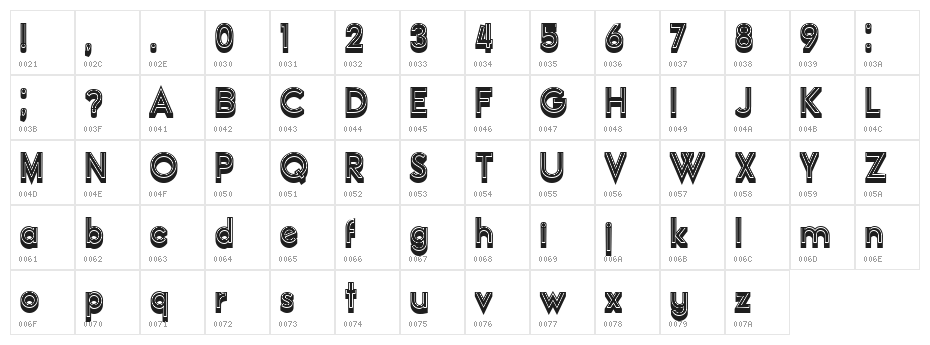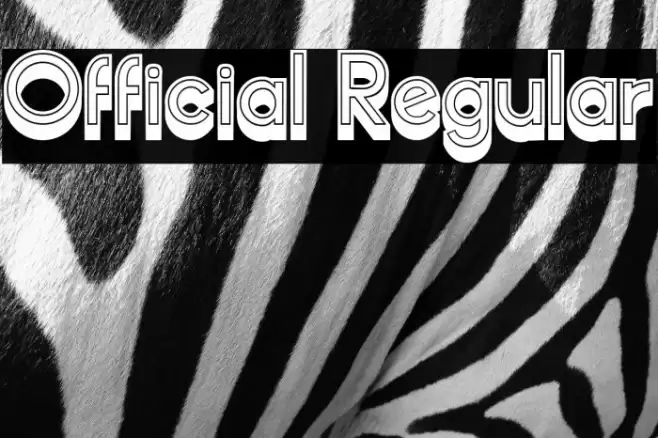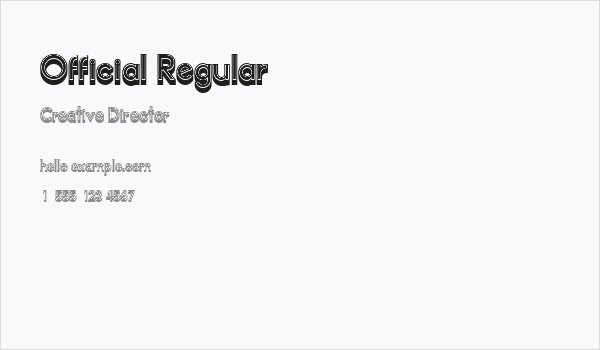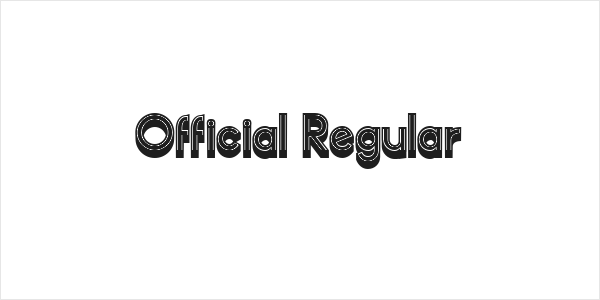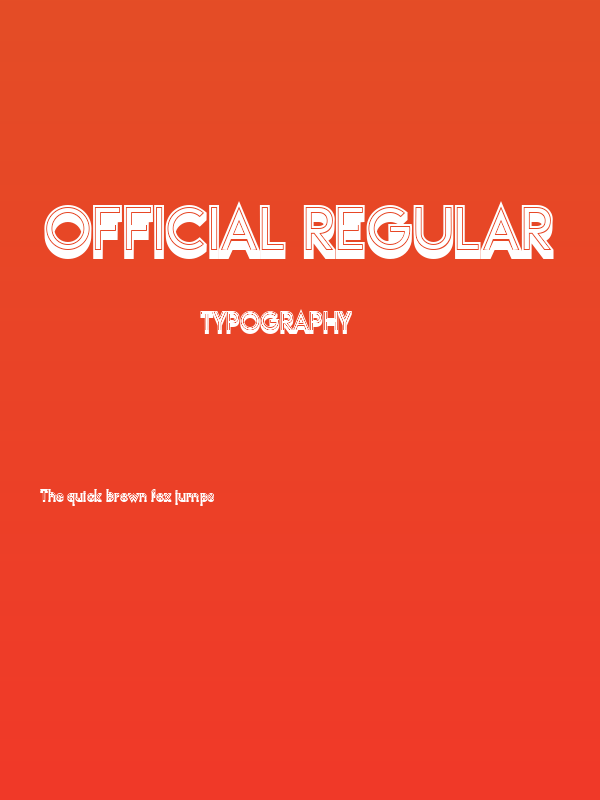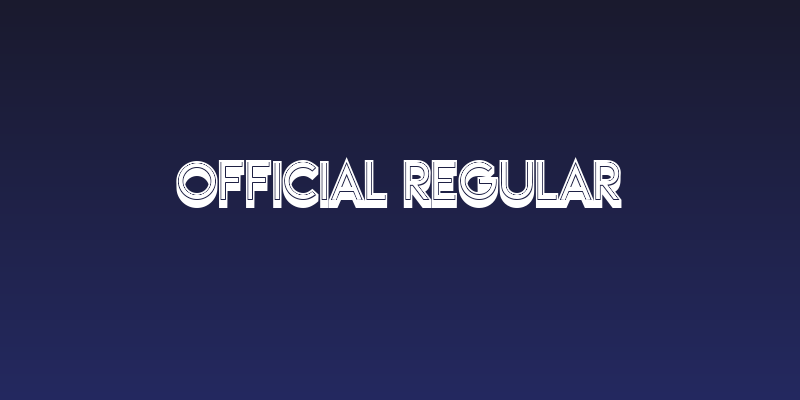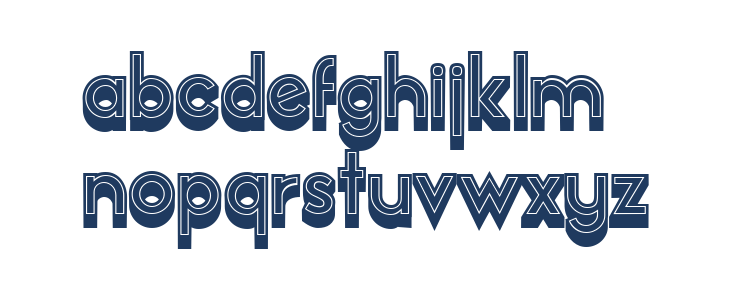
Official Regular Font
Official Regular Description
This font features a bold and striking design with a three-dimensional effect created by a shadow-like outline. The uppercase and lowercase letters maintain a consistent geometric structure, providing a modern and clean appearance. The numerals are equally bold, ensuring readability and visual impact. The special characters are designed to match the overall style, making them suitable for various applications. The font's unique style makes it ideal for attention-grabbing headlines and titles.